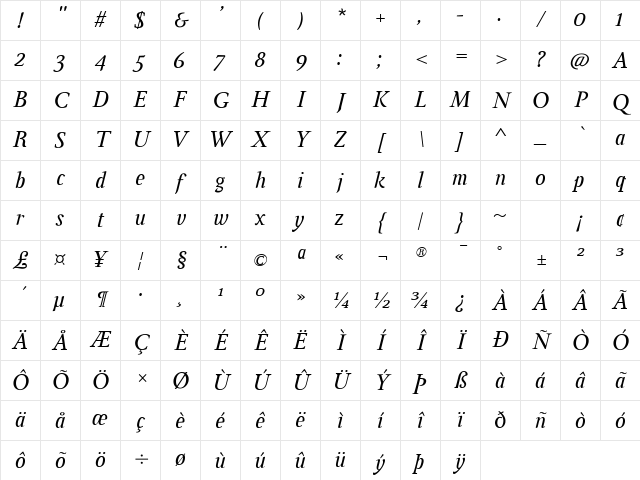
Ingleby Italic
Foundry: David Engelby
Designer: David Engelby
Design Context for Ingleby
Ingleby is a composed and adaptable typeface that performs quietly and consistently across a wide range of design contexts. The slanted form adds forward momentum and visual energy.
Pro Tip: Use Ingleby for emphasis, pull quotes, and subheadings where its slanted energy can add rhythm to the layout.
Who designed the Ingleby Italic font?